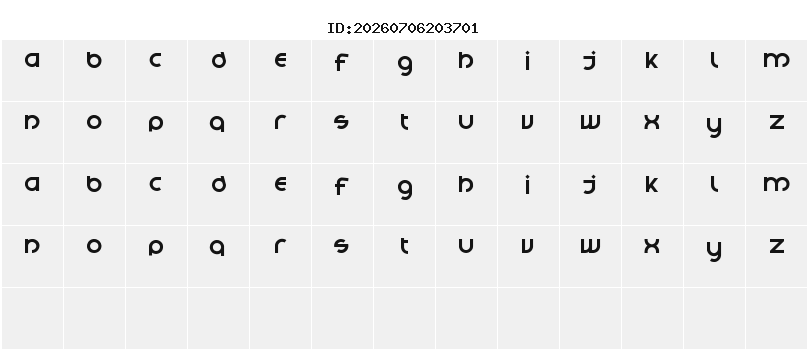
Dempsey Preview
• Font Name: Dempsey
• Font Style: ModUncial
• Font ID: Demsey Modern Uncial
• Full Font Name: Demsey Modern Uncial
About Dempsey.ttf
Dempsey.ttf is a modern, elegant sans-serif font designed for ultimate readability and visual harmony. Perfect for branding, headlines, web design, and print materials.